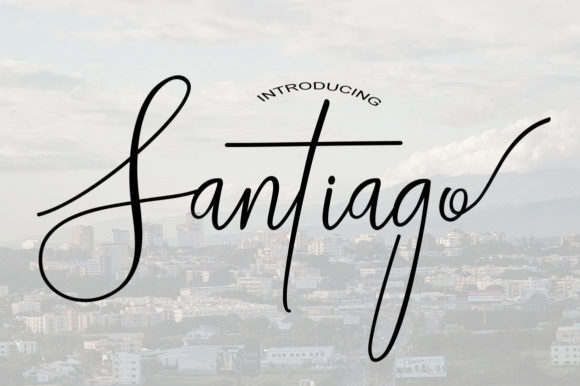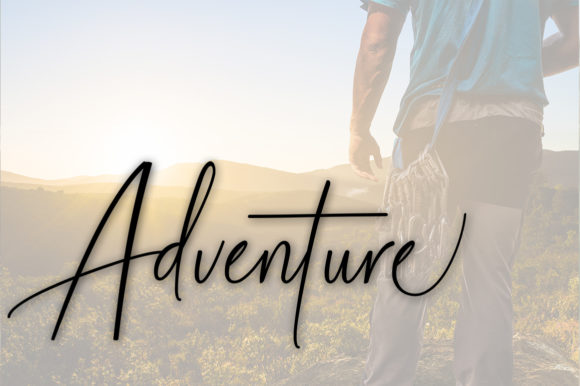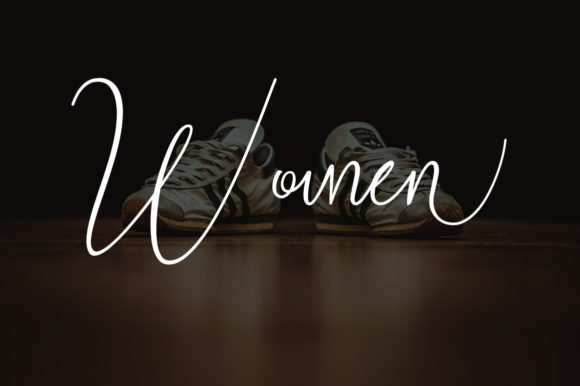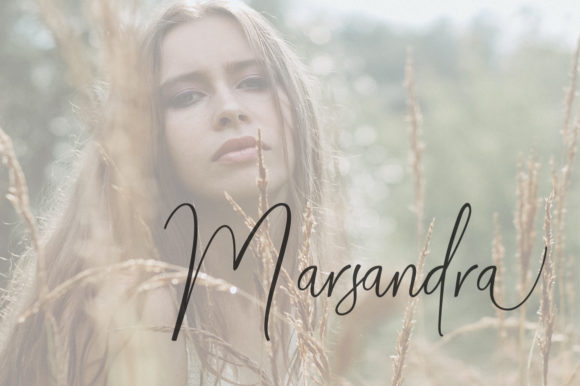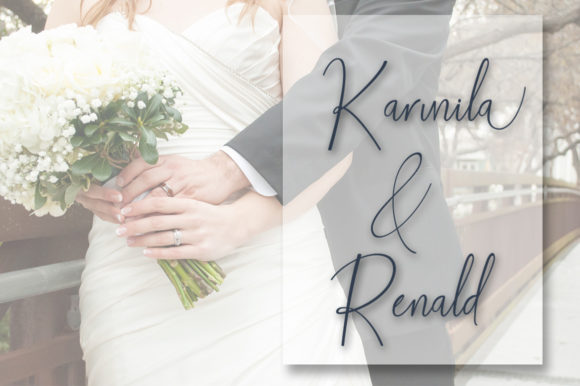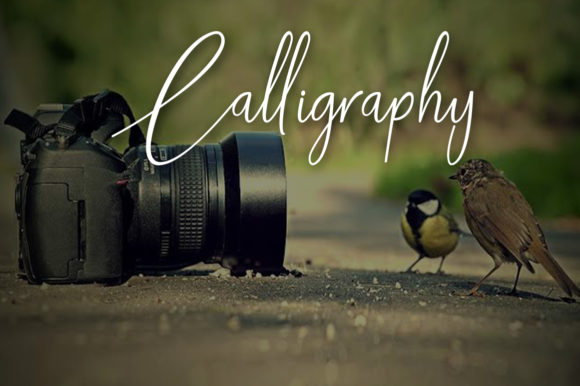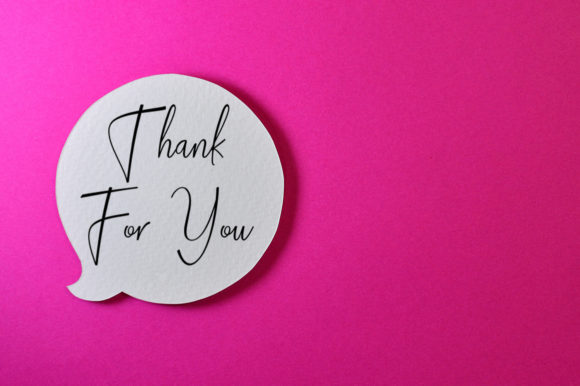
Santiago Font
About Santiago Font
The Santiago is a modern script typeface. It has decorative characters and a dancing linage which will give your design an elegant touch.